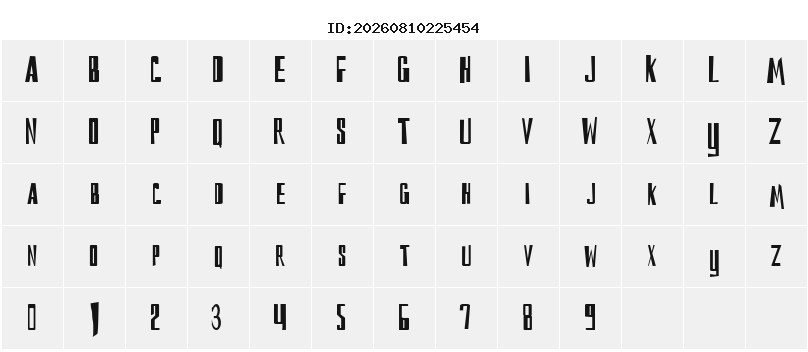
reckoning Preview
About reckoning.ttf
reckoning.ttf is a modern, elegant sans-serif font designed for ultimate readability and visual harmony. Perfect for branding, headlines, web design, and print materials.